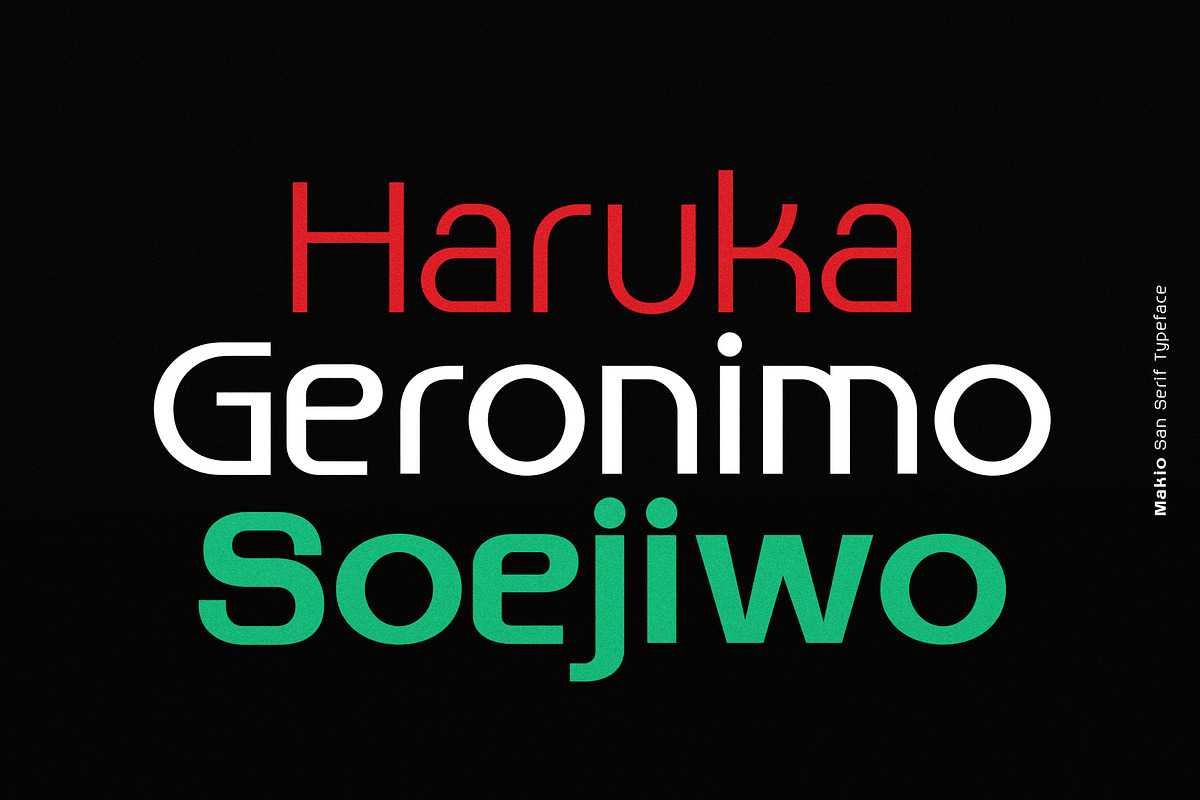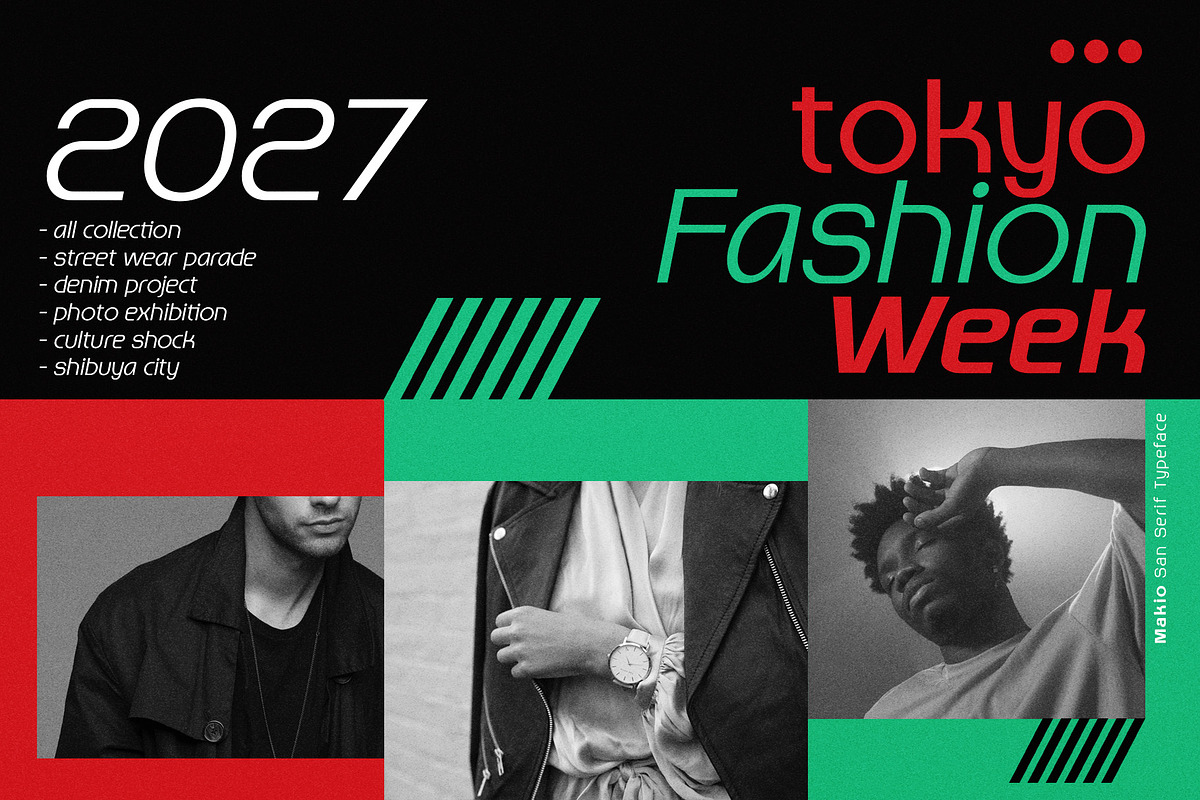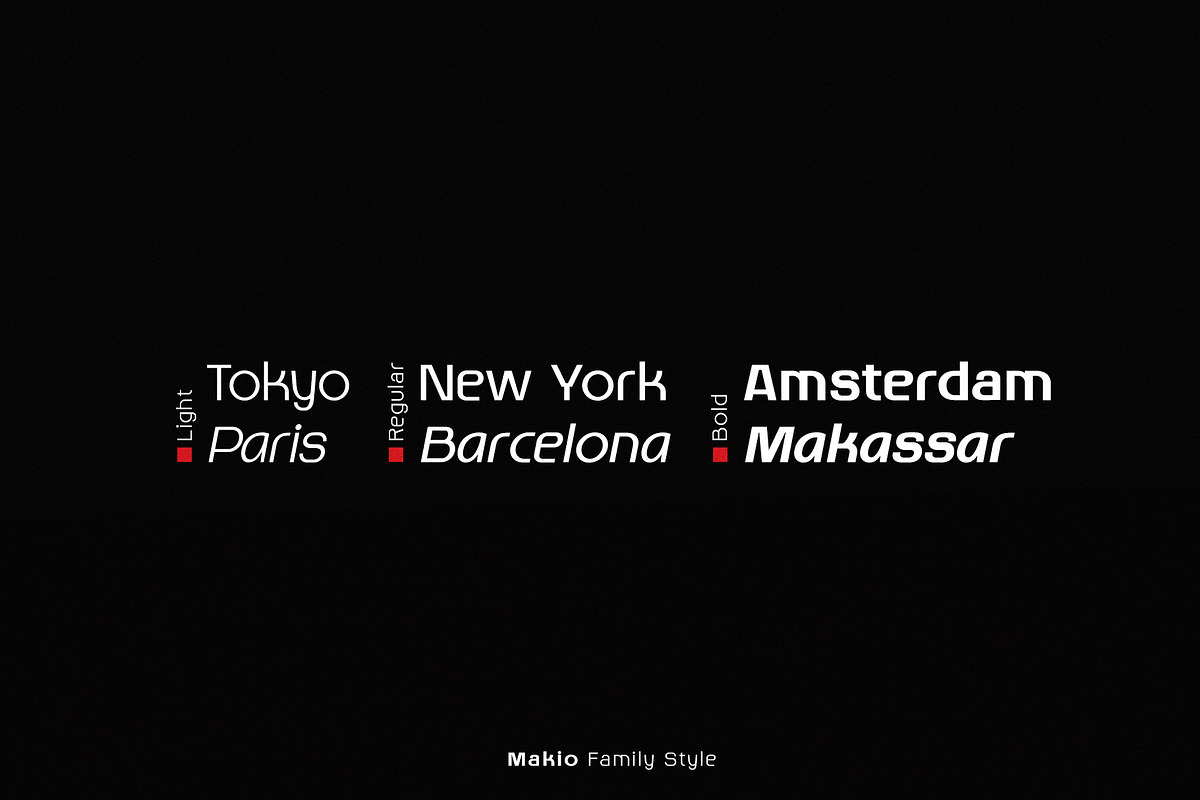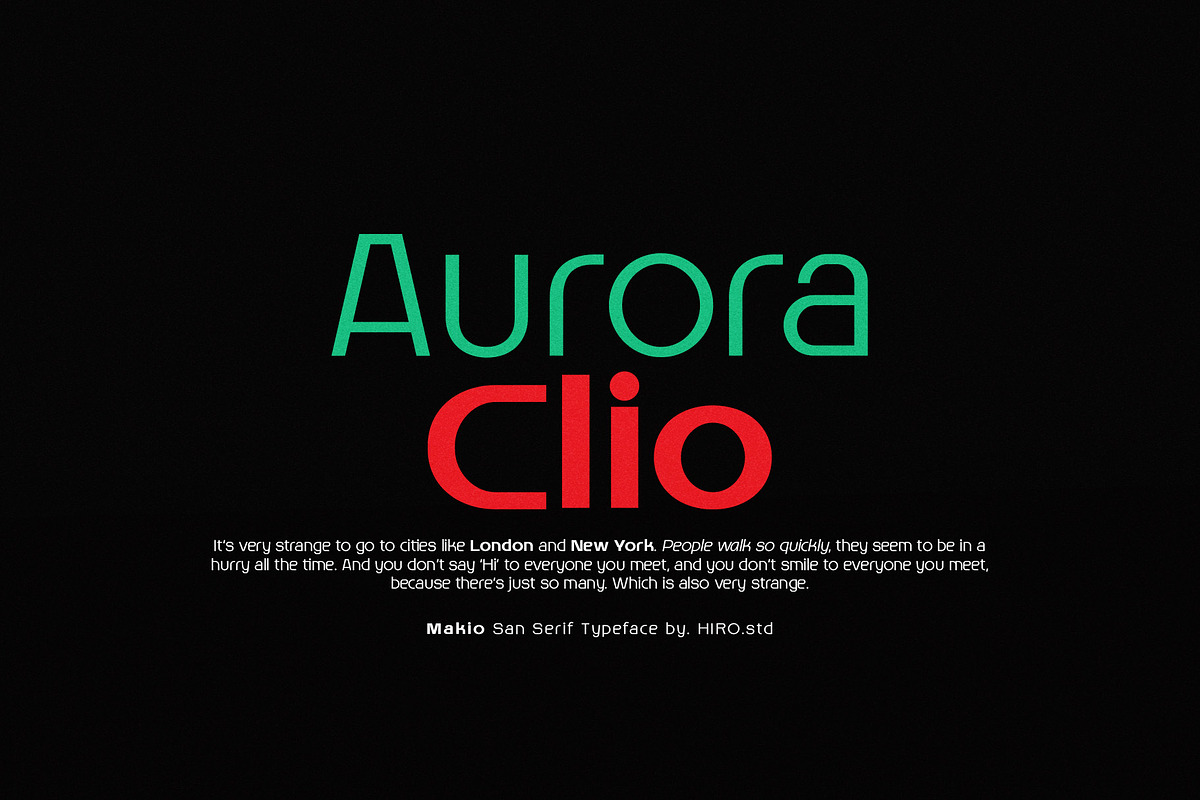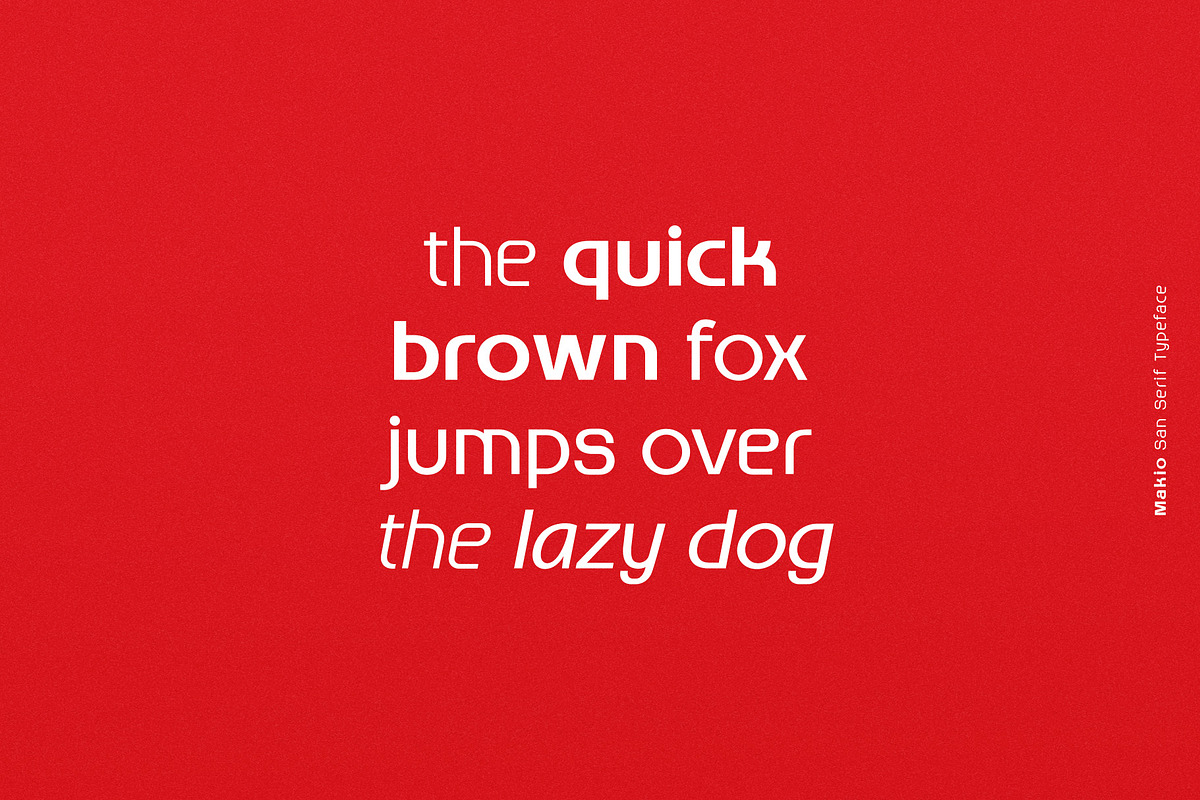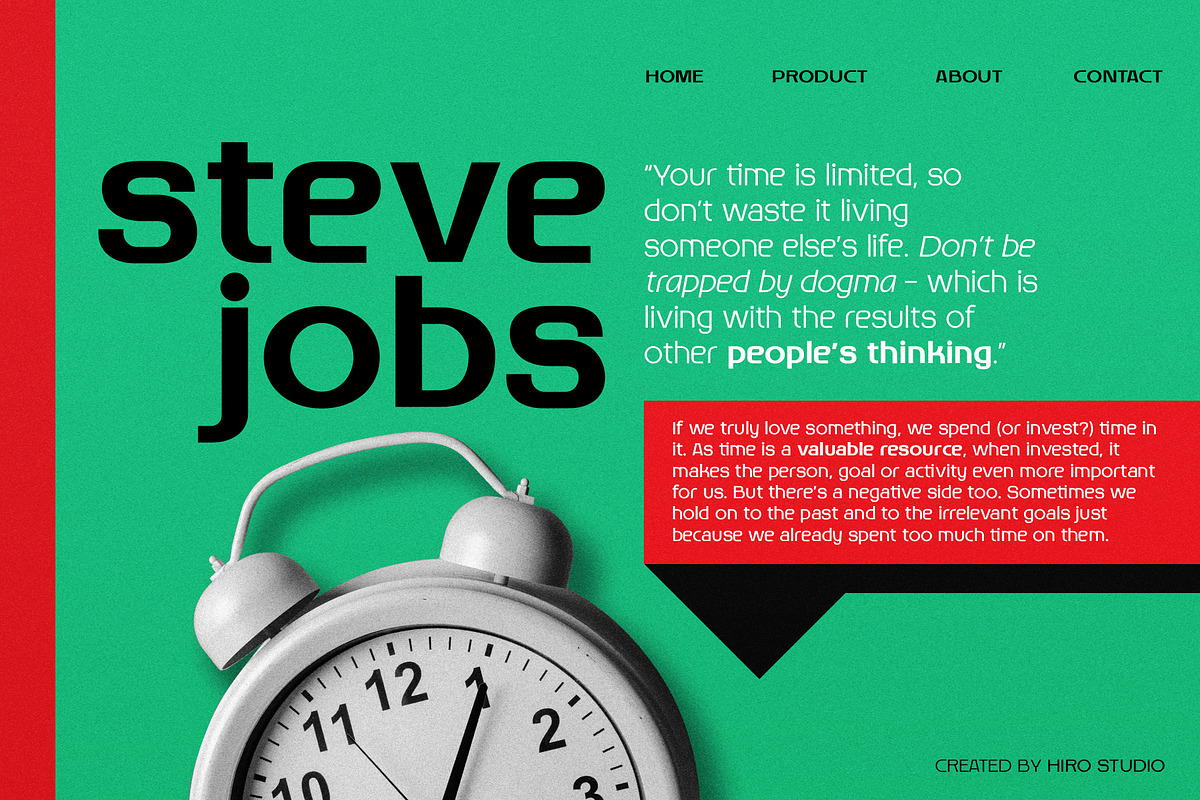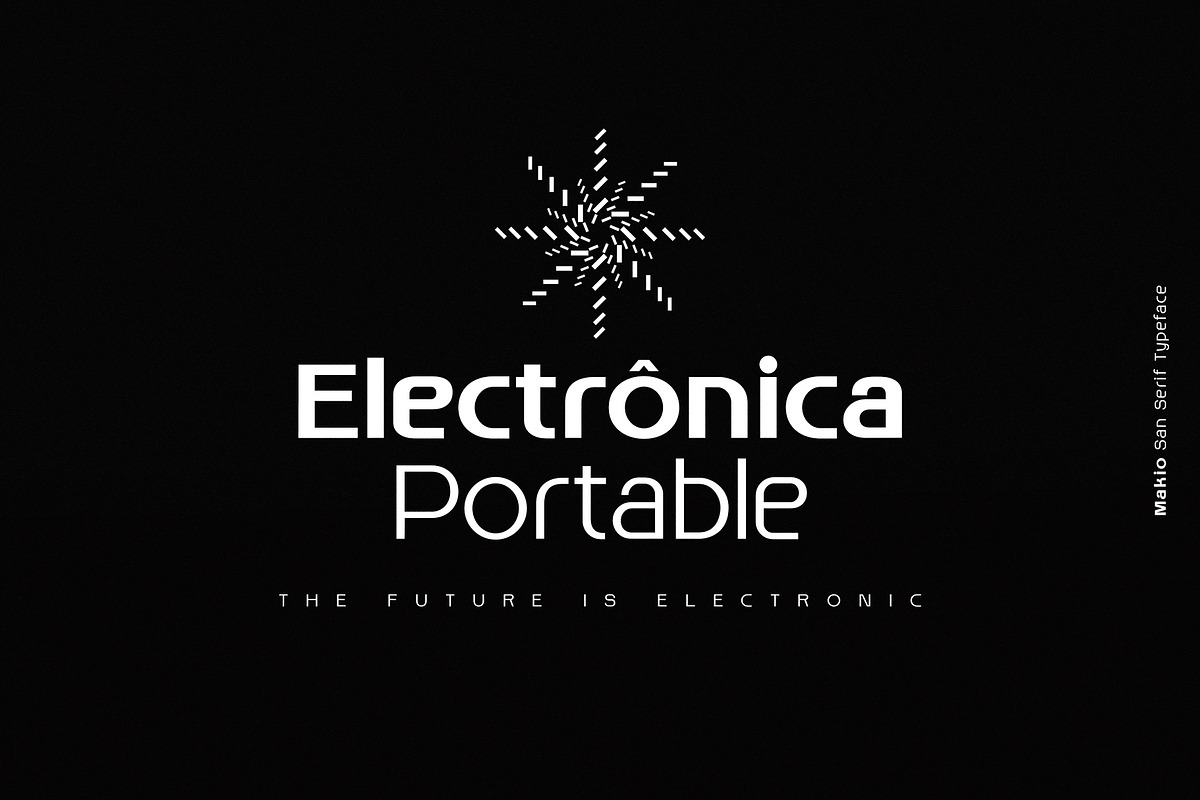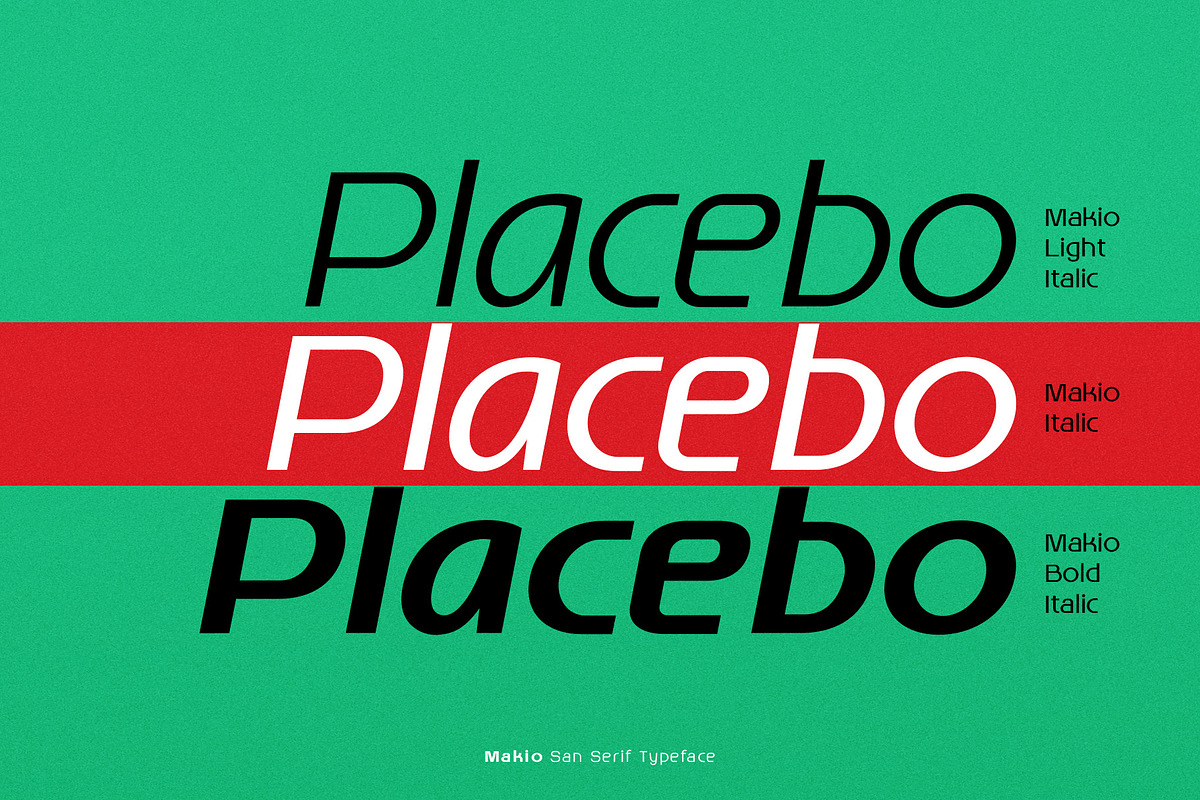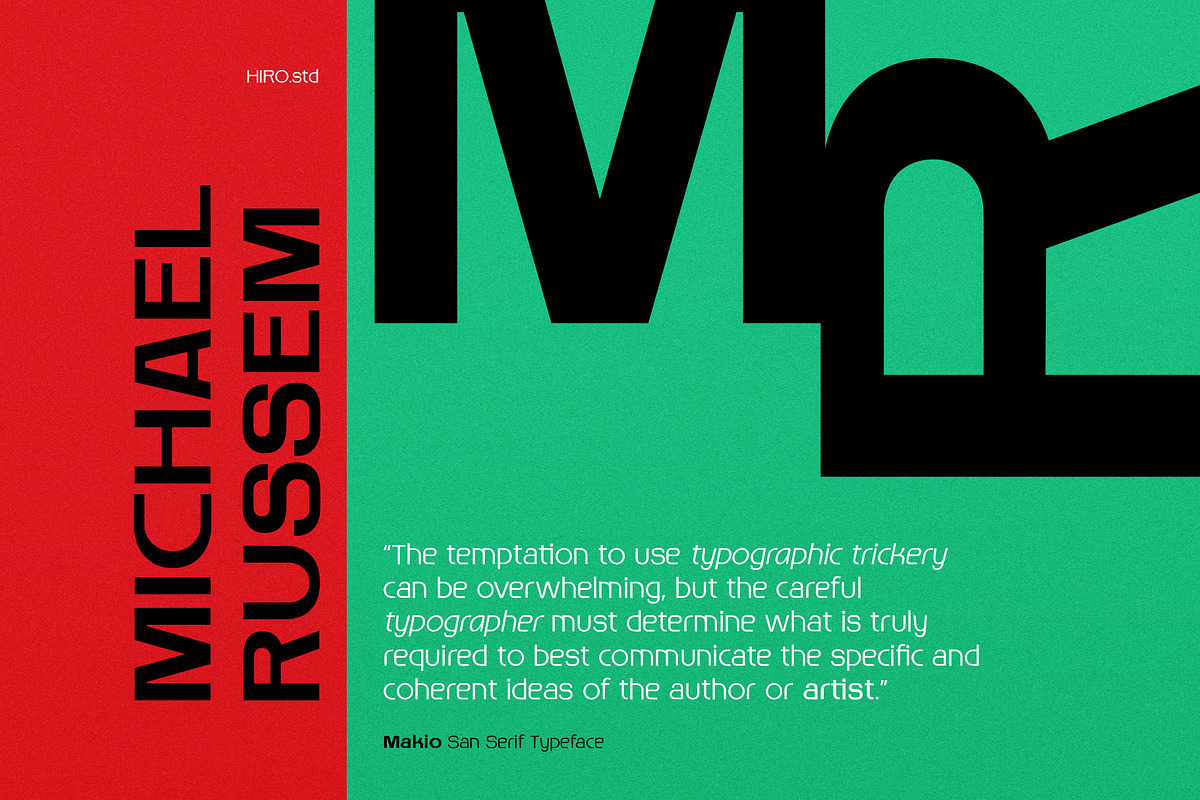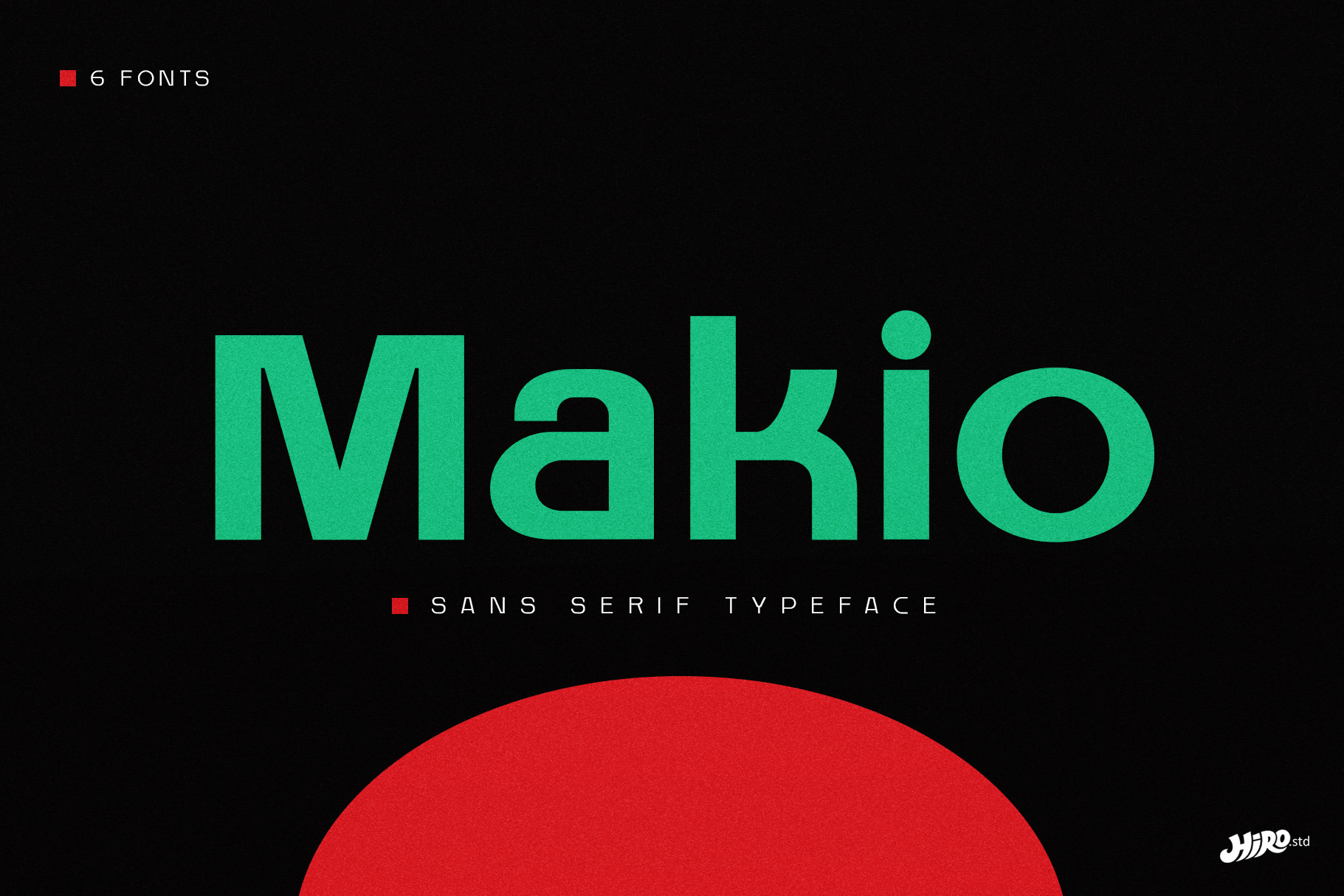
Makio - Sans Serif Typeface
Makio is San Serif Typeface
Makio inspired by modern life, clean, simple life, Japan culture, and minimalist symbols.
This font works great in any branding, name card, logos, title, websites, product packaging, flyers, magazines, label, films, stationary, posters, etc. and any design project that requires clean, modern and simple touch.
- Three Weight